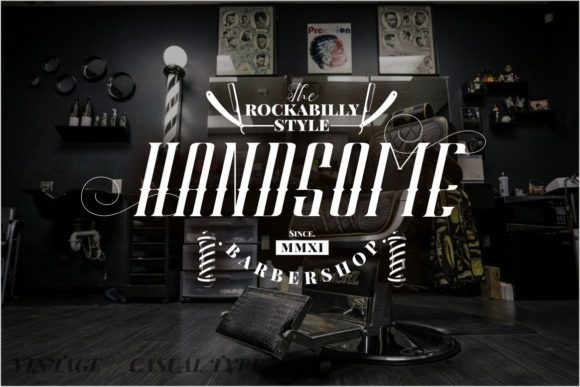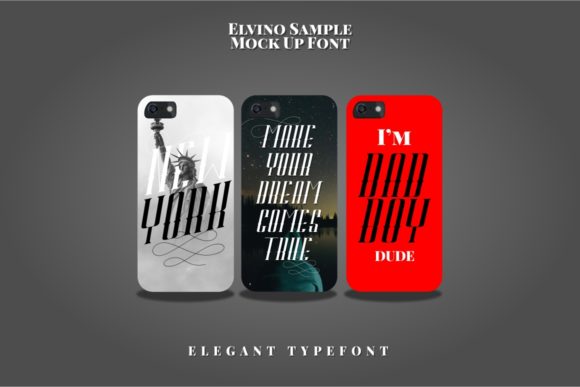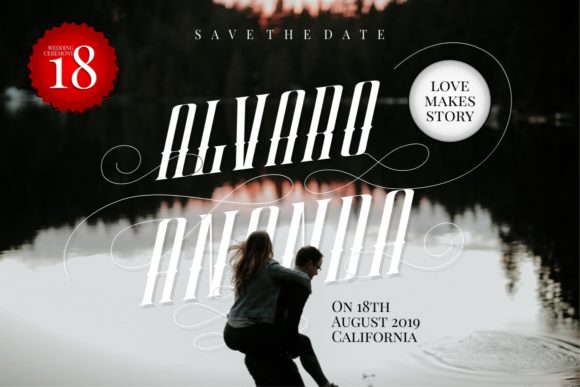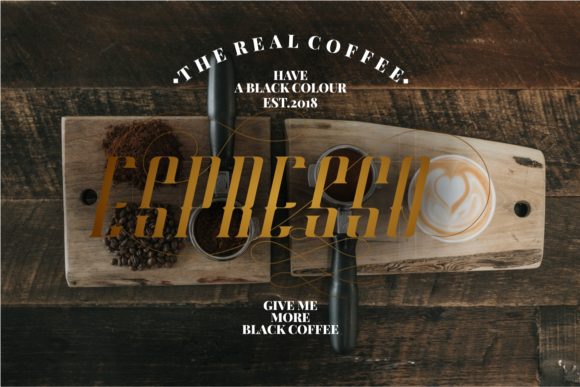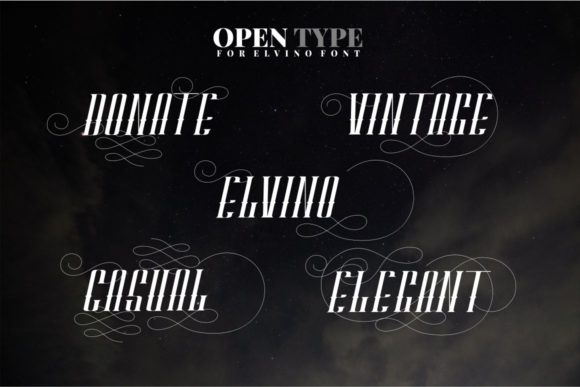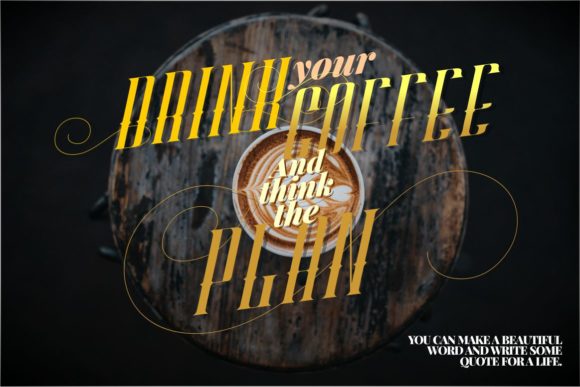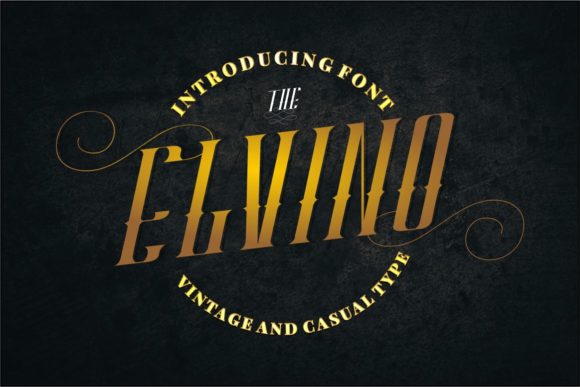
Introducing Elvino Font: A Stunning Vintage-Themed Display Font
Are you tired of using the same old fonts in your design projects? Look no further than Elvino Font, a stunning vintage-themed display font that adds a charming twist to any design. With its unique feel and nostalgic vibe, Elvino is perfect for designers and crafters looking to add a touch of elegance and sophistication to their work.
What is Elvino Font?
Elvino Font is a carefully crafted display font that draws inspiration from the classic typography of the past. Its vintage theme is evident in its elegant lines, refined curves, and distinctive character. Whether you’re working on a branding project, a website design, or a craft project, Elvino Font is sure to make a statement.
Key Features of Elvino Font
- Unique feel: Elvino Font has a one-of-a-kind design that sets it apart from other fonts. Its distinctive character makes it perfect for adding a touch of personality to your designs.
- Vintage theme: Elvino Font is inspired by the classic typography of the past, making it perfect for designers and crafters who love vintage designs.
- Elegant lines: The font features elegant lines and refined curves that give it a sophisticated look.
- High-quality design: Elvino Font is designed with high-quality craftsmanship, ensuring that it looks great in any design project.
Why Choose Elvino Font?
So why choose Elvino Font over other fonts? Here are just a few reasons:
- Adds a touch of elegance: Elvino Font adds a touch of elegance and sophistication to any design project, making it perfect for high-end branding and design projects.
- Versatile: Elvino Font is versatile and can be used in a variety of design projects, from websites and branding to craft projects and more.
- Unique: Elvino Font is a unique font that will help your design stand out from the crowd.
Design Ideas Using Elvino Font
Elvino Font is a versatile font that can be used in a variety of design projects. Here are some design ideas to get you started:
- Branding: Use Elvino Font to create a logo or branding materials for a high-end company or product.
- Web design: Use Elvino Font as a display font on a website to add a touch of elegance and sophistication.
- Craft projects: Use Elvino Font to add a touch of vintage charm to craft projects such as scrapbooking, card making, and more.
- Sign making: Use Elvino Font to create eye-catching signs for businesses, events, or personal projects.
Elvino Font is a stunning vintage-themed display font that adds a charming twist to any design project. With its unique feel, elegant lines, and refined curves, Elvino is perfect for designers and crafters looking to add a touch of elegance and sophistication to their work. Whether you’re working on a branding project, a website design, or a craft project, Elvino Font is sure to make a statement.